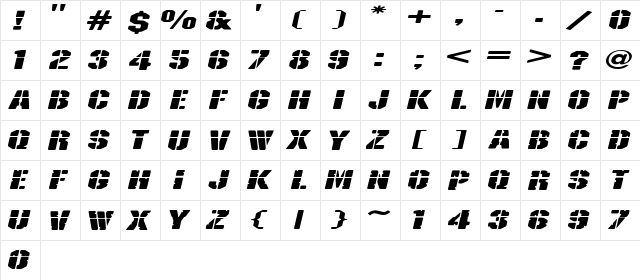
Combat Regular
Design Context for Combat Typeface
Combat has the no-nonsense character of military stencilling and tactical signage, projecting authority and directness.
Designed for tactical branding, military-inspired apparel, action game UI, and utility-focused signage.
Pro Tip: Use Combat at medium-to-large sizes where its utilitarian structure can be appreciated — the character detail gets lost at small sizes.